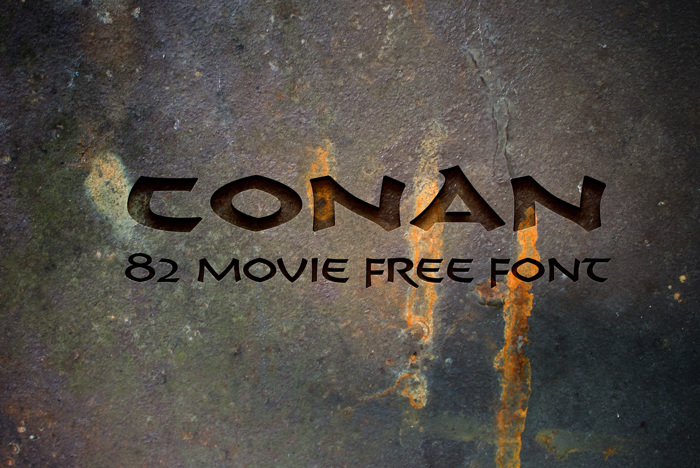
Crush Your Enemies Font
Original source drawn on the original drawing of the opening of the film conan the barbarian of 1982. bonus: a light version of the source, to be used as a complement and in longer texts. Excellent readability.
Good for epic titles!